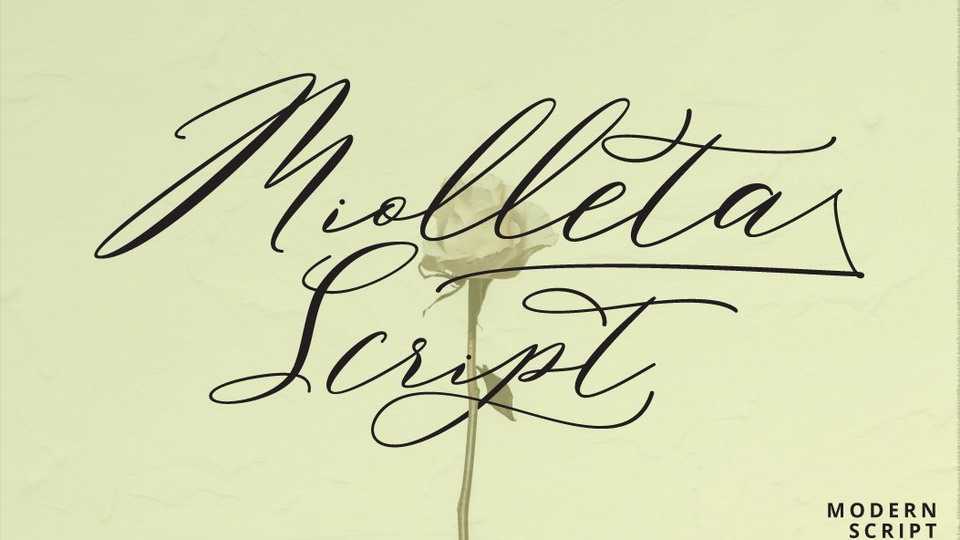
Download Miolleta Script font, a unique blend of classic and modern with imperfect style ups and downs, like a dance letters, smooth, clean and simple.